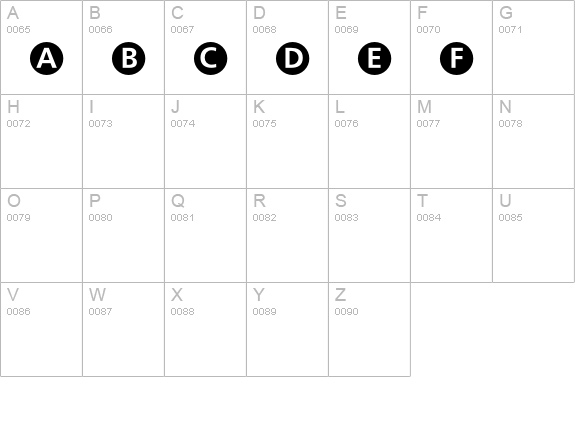
EightBall Font Details
The EightBall font is a unique and eye-catching typeface that exudes a sense of modernity and creativity. Its bold and rounded design makes it perfect for a variety of design projects, from posters to logos to social media graphics. The EightBall font is not only visually appealing, but also versatile and easy to read, making it a great choice for both print and digital applications. Best of all, the EightBall font is available for free download at FontsMarket.com. This means that you can add this stylish and dynamic font to your collection without having to worry about any costs. Whether you're a professional designer or just someone looking to spice up your personal projects, the EightBall font is a fantastic choice that won't break the bank. Download it today and start creating stunning designs with this striking typeface.